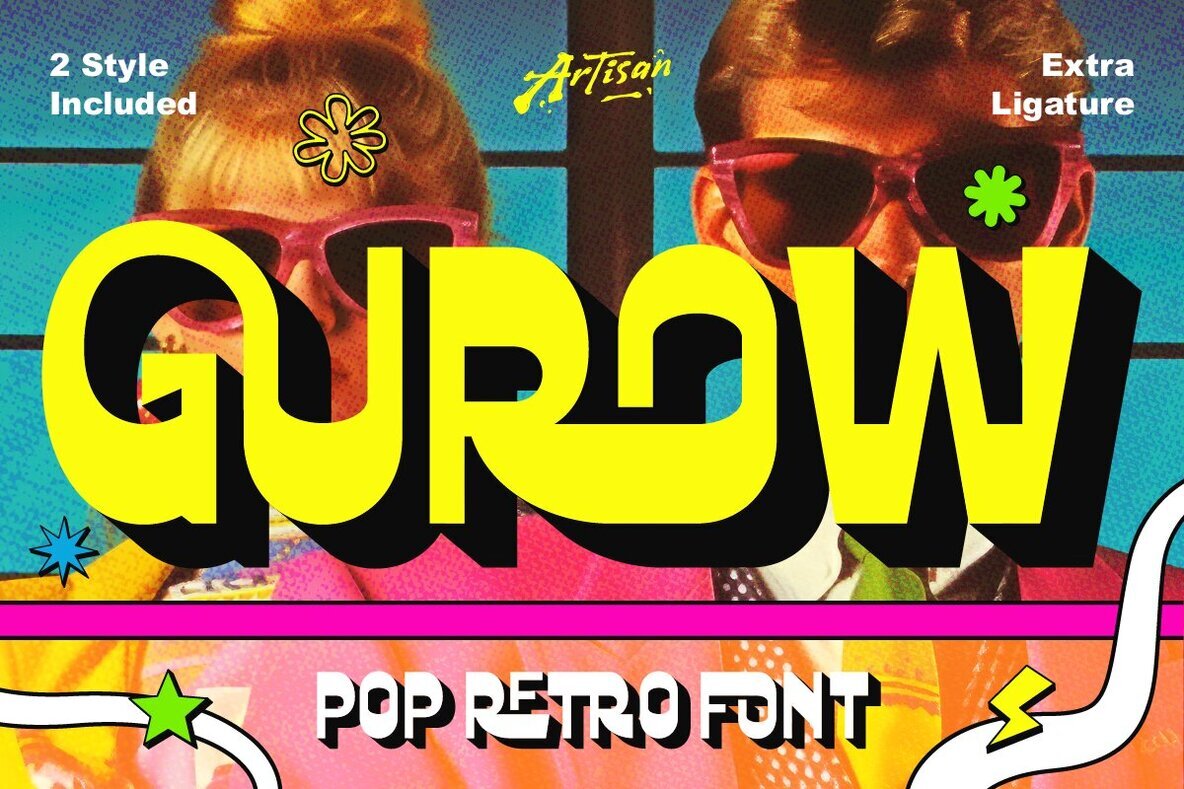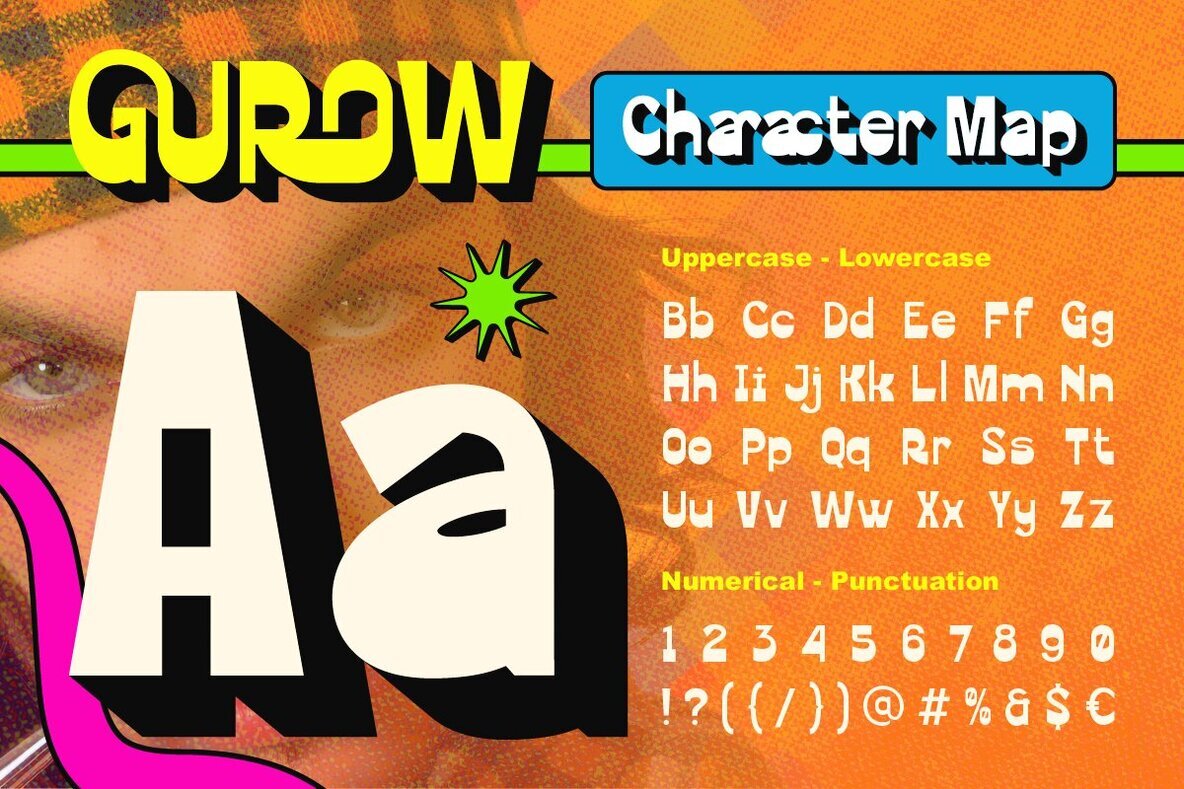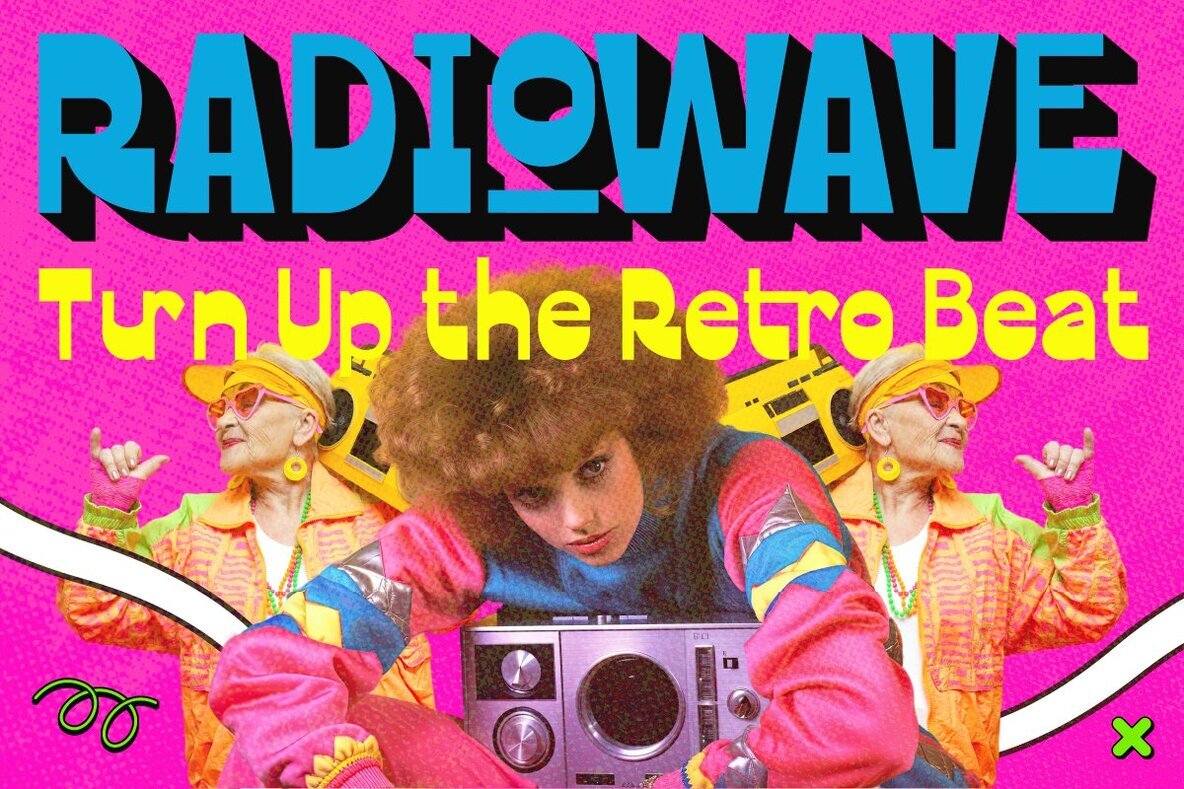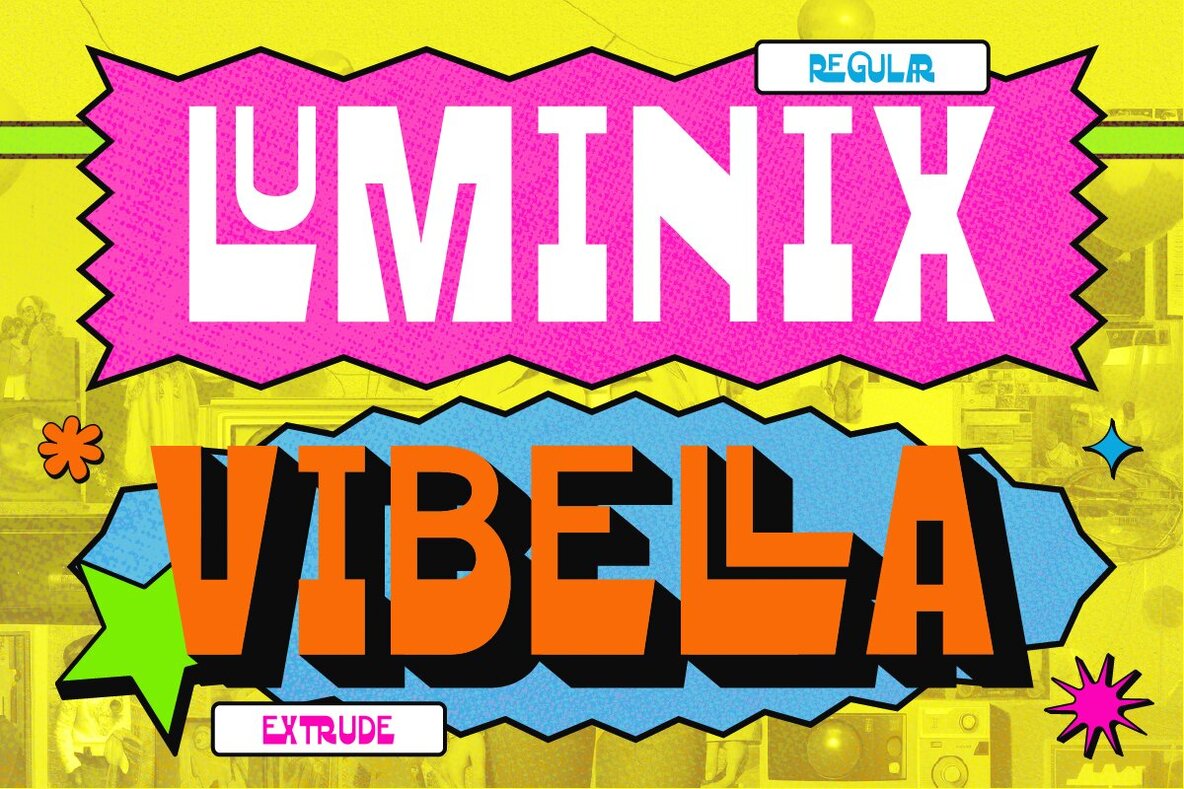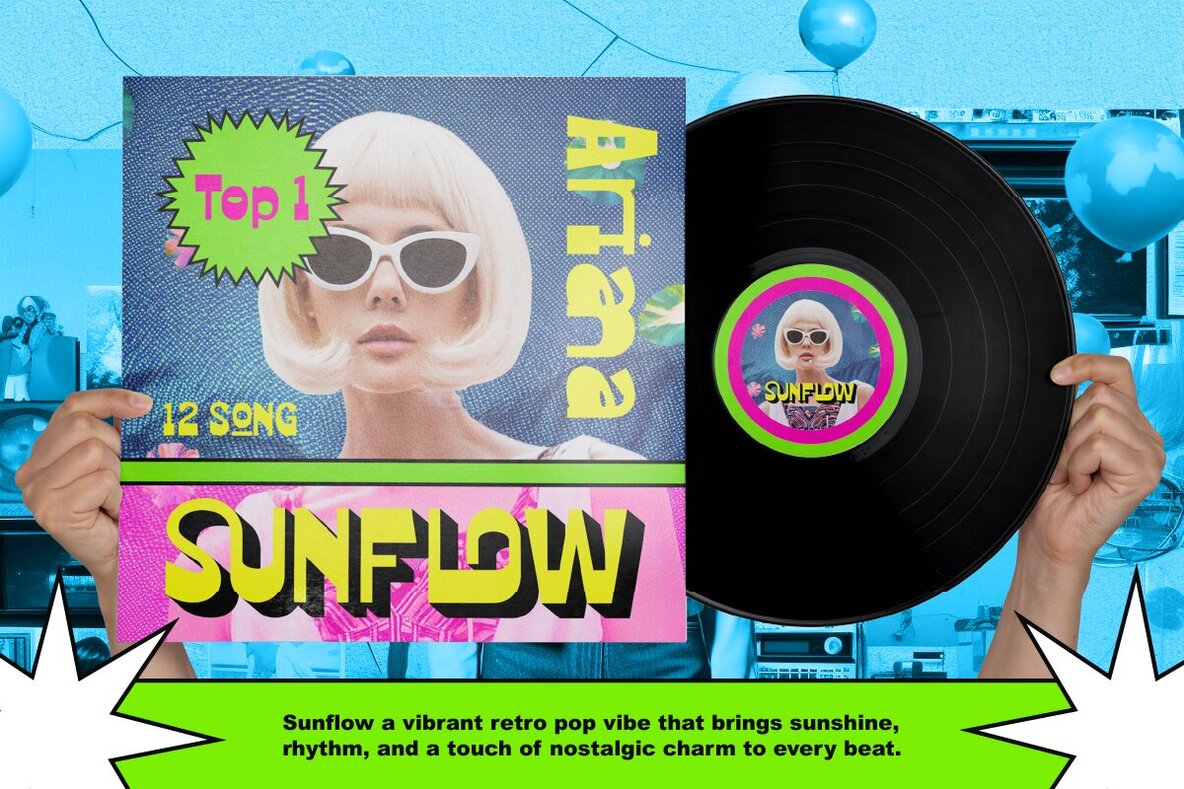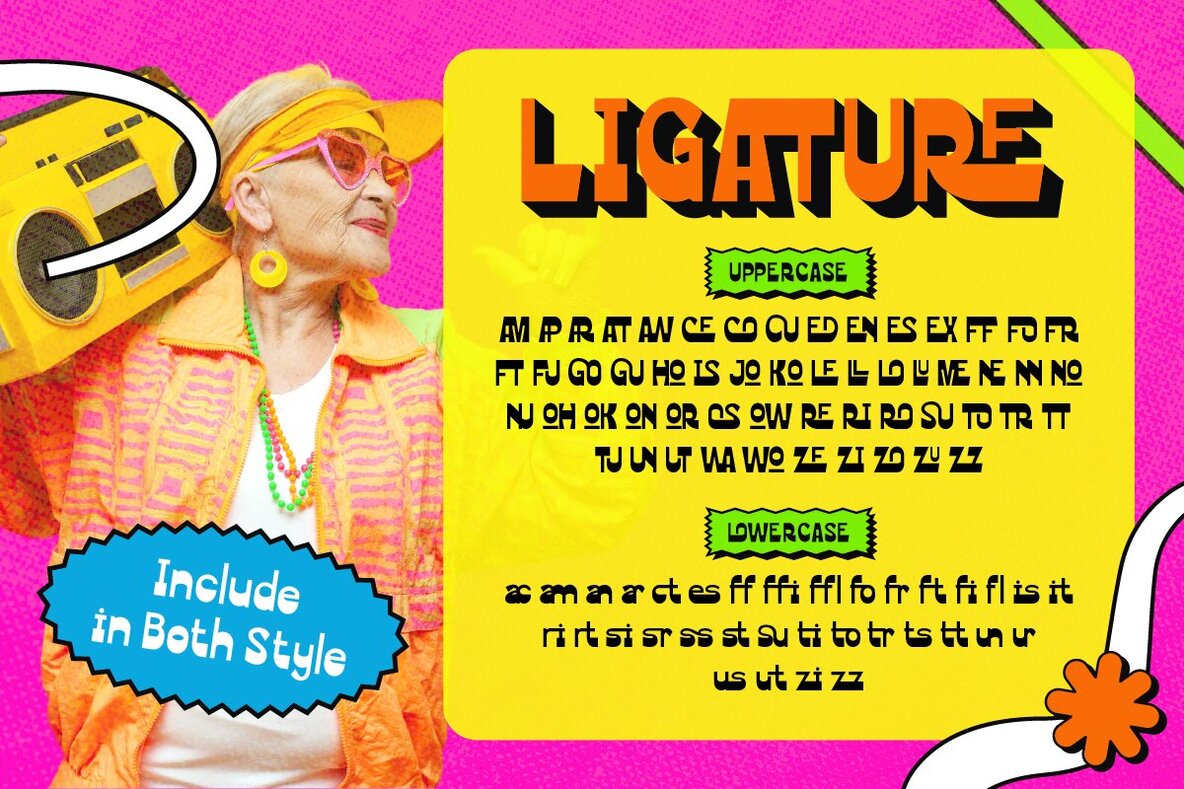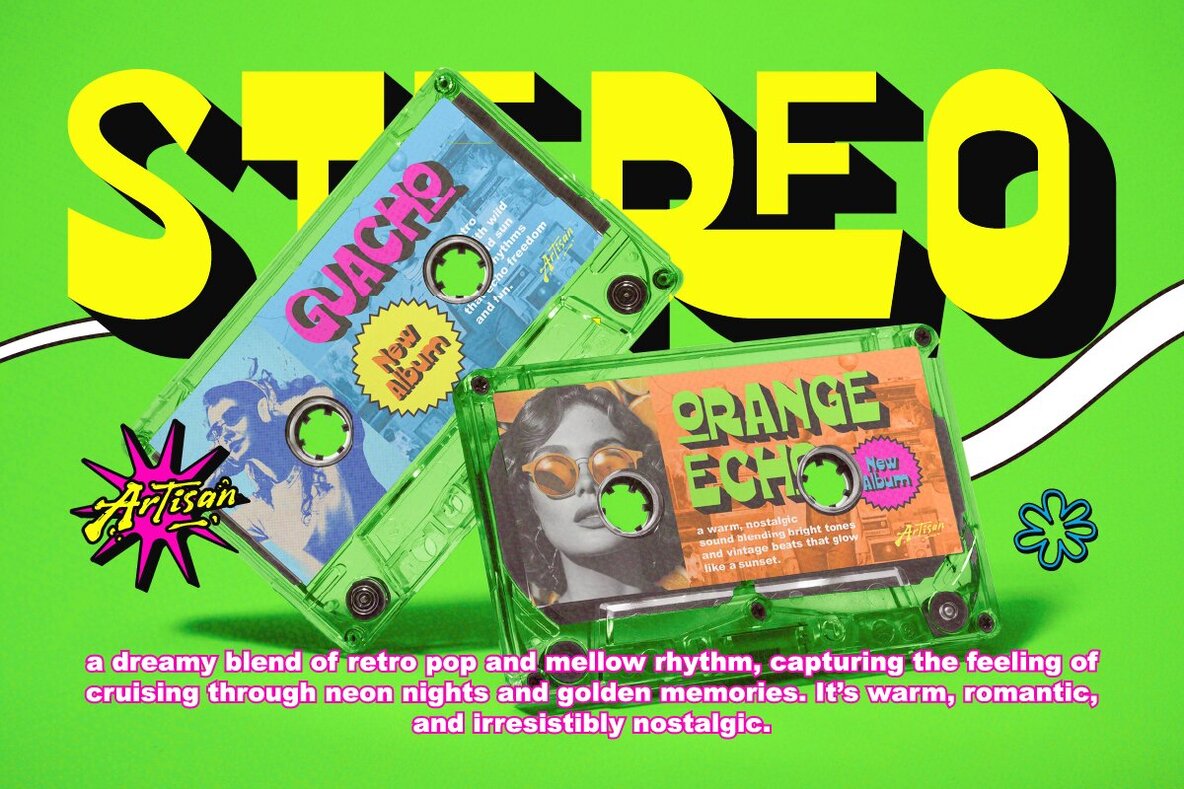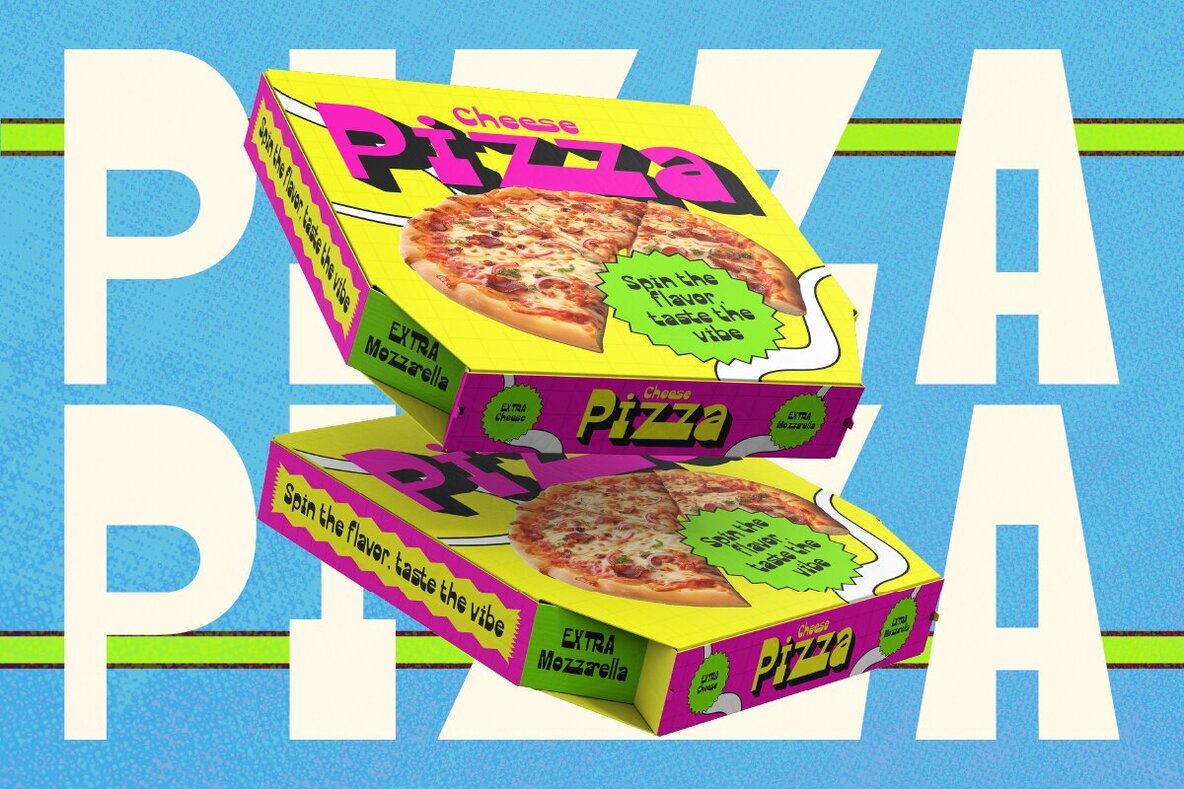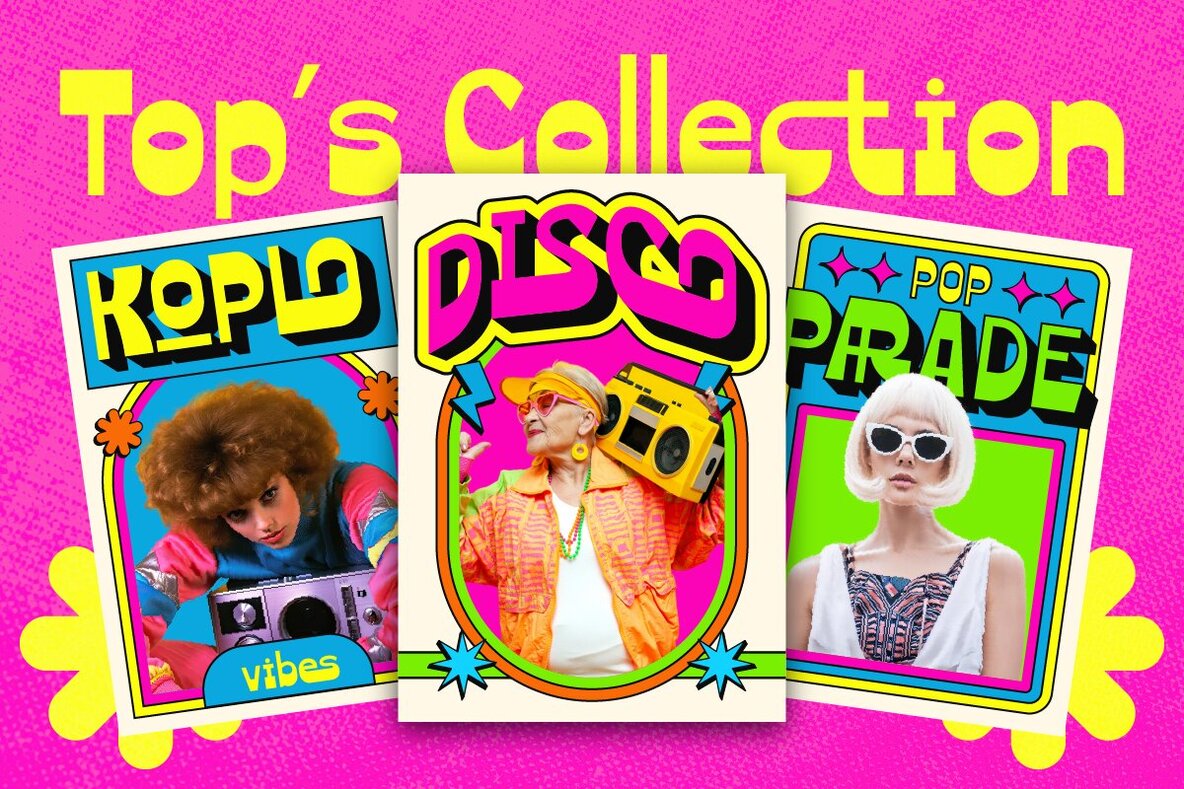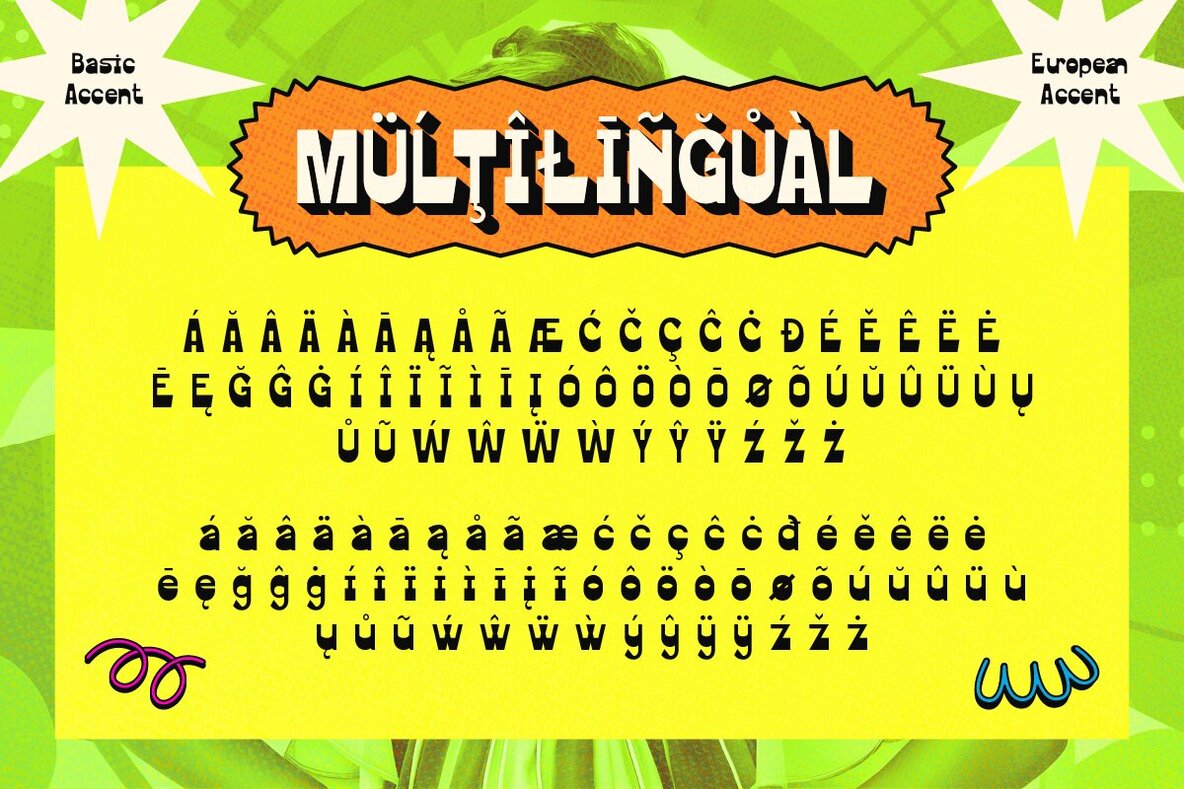
Gurow Font
Gurow Regular
Gurow Extrude
Gurow brings a bold pop-retro character to visual projects, channeling the untamed spirit of 1980s design within a contemporary framework. Its high-energy letterforms and unapologetic presence make it a distinctly modern statement for creative professionals seeking to break from the ordinary. Gurow is well-suited to poster art, album covers, branding, and social media graphics—any space requiring a clear visual voice. The font offers two distinctive styles, Regular and Extrude, alongside additional ligatures for enhanced versatility. With its electric aesthetic, Gurow presents ample opportunity for designers to inject vivid personality into typographic compositions while maintaining readability and structure. Its multifaceted language support and extensive character set ensure adaptability across diverse creative contexts.Gurow: Bold Retro Pop Font for Dynamic Designs